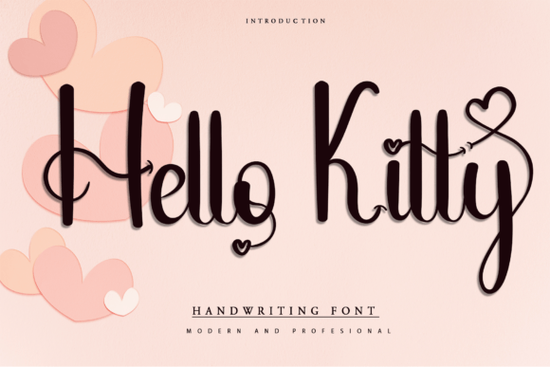
The Hello Kitty Font is a charming, handwritten typeface that brings a warm and personal touch to any design. Whether you're creating greeting cards, social media graphics, or branding materials, this font offers a simple yet elegant style that feels natural and approachable. Its versatility makes it a great choice for designers, crafters, and small business owners looking to add a friendly vibe to their work.
If you're searching for a font that balances creativity with readability, the Hello Kitty Font could be just what you need. It's especially well-suited for projects that aim to convey a sense of playfulness or nostalgia. The font’s soft curves and casual look make it ideal for everything from product labels to digital signage.
What Makes the Hello Kitty Font Unique?
The Hello Kitty Font stands out for its handcrafted appearance, which mimics the look of real handwriting. This gives it a more personal feel compared to standard fonts. It’s not too bold, nor too light, making it easy to read while still maintaining a distinctive character.
One of the key advantages of this font is its adaptability. It works well in both digital and print formats, allowing you to use it across different platforms without losing quality. Whether you're designing a logo or adding text to a handmade card, the Hello Kitty Font can fit the bill.
Best Uses for the Hello Kitty Font
- Greeting cards: Add a personal touch to birthday, thank-you, or holiday cards.
- Branding: Use it for logos, tags, or packaging to create a friendly brand image.
- Social media posts: Make your content stand out with a unique and inviting font.
- Print-on-demand items: Ideal for T-shirts, mugs, and other custom products.
Its simplicity also means it pairs well with other fonts. You can combine it with a more structured typeface to create visual contrast and keep your designs balanced.
How to Use the Hello Kitty Font Effectively
To get the most out of the Hello Kitty Font, consider the context in which you’ll use it. Since it’s a handwritten style, it’s best suited for short phrases rather than long paragraphs. This helps maintain readability and prevents the text from looking cluttered.
When using it in digital projects, make sure to test it at different sizes. What looks good at 24pt might not be as clear at 12pt. Always check how the font appears on various devices and backgrounds to ensure it remains legible.
Whether you're a designer, crafter, or small business owner, the Hello Kitty Font provides a simple and stylish way to enhance your work. Its friendly appearance and ease of use make it a valuable addition to any creative toolkit.
Before finalizing your design, always test the font in different settings to ensure it meets your expectations. With a little experimentation, you can make the most of this versatile and appealing typeface.
Checklist for using the Hello Kitty Font:
- Test the font at different sizes and on various backgrounds.
- Use it for short phrases to maintain clarity.
- Pair it with complementary fonts for balance.
- Explore related fonts to find the best fit for your project.